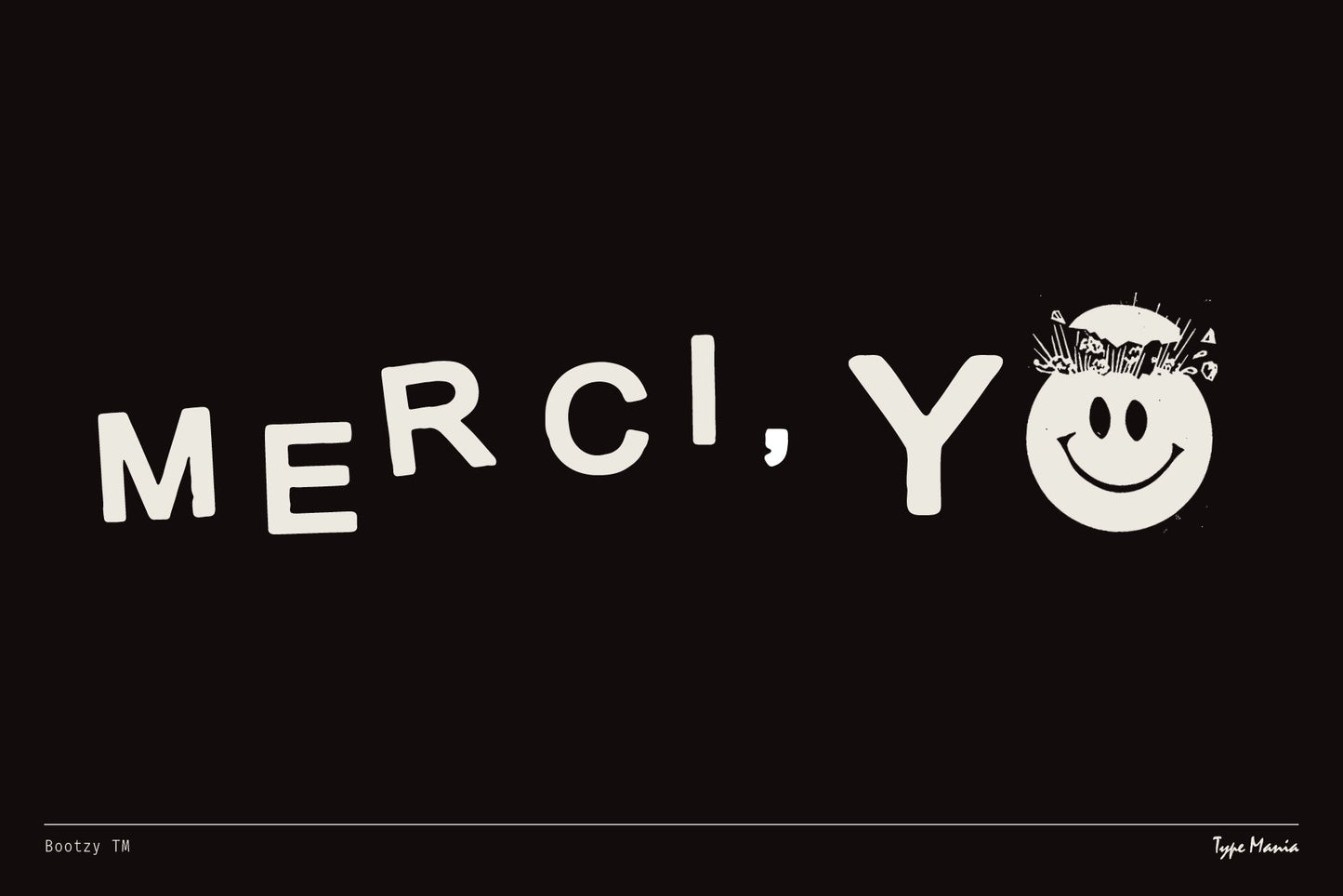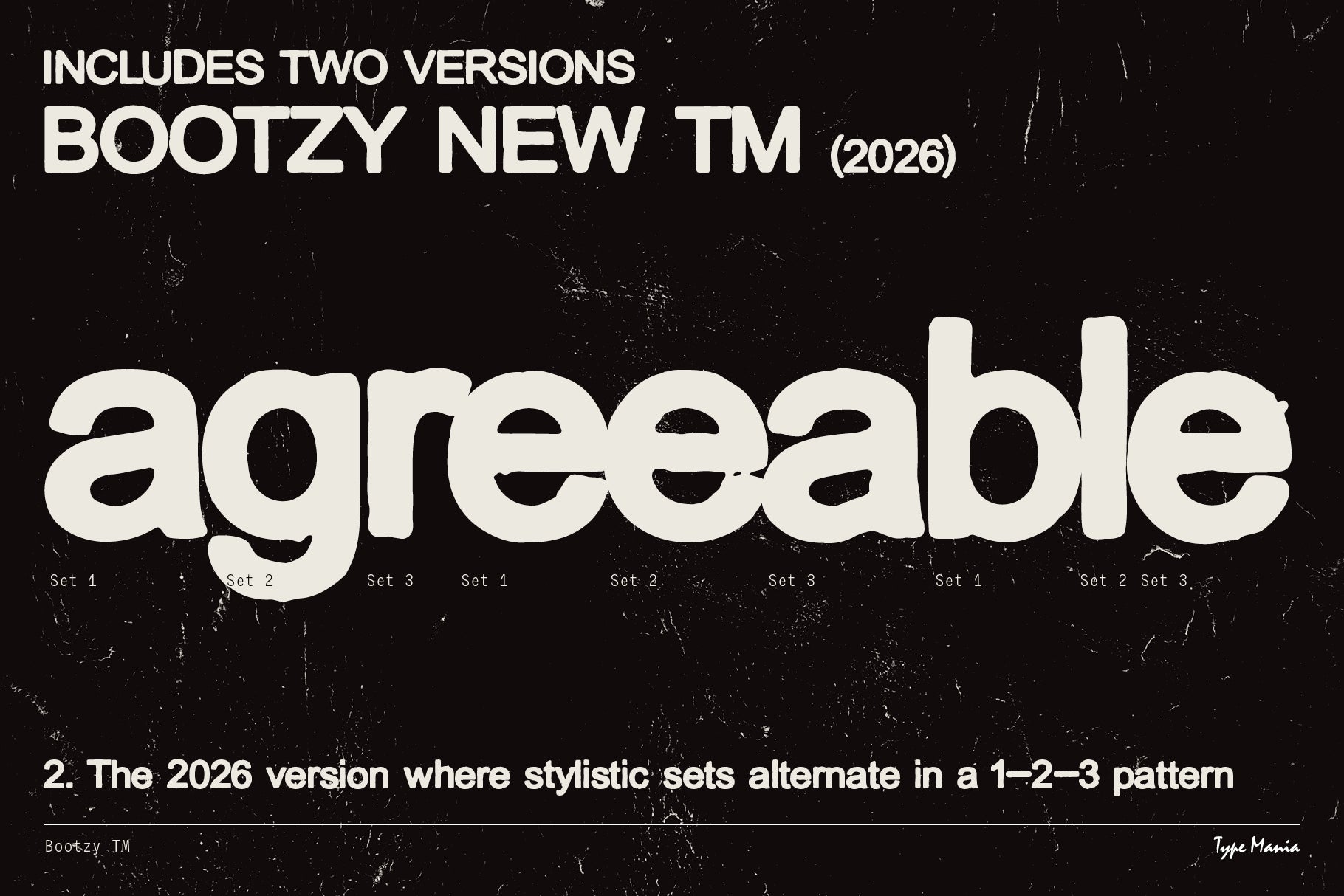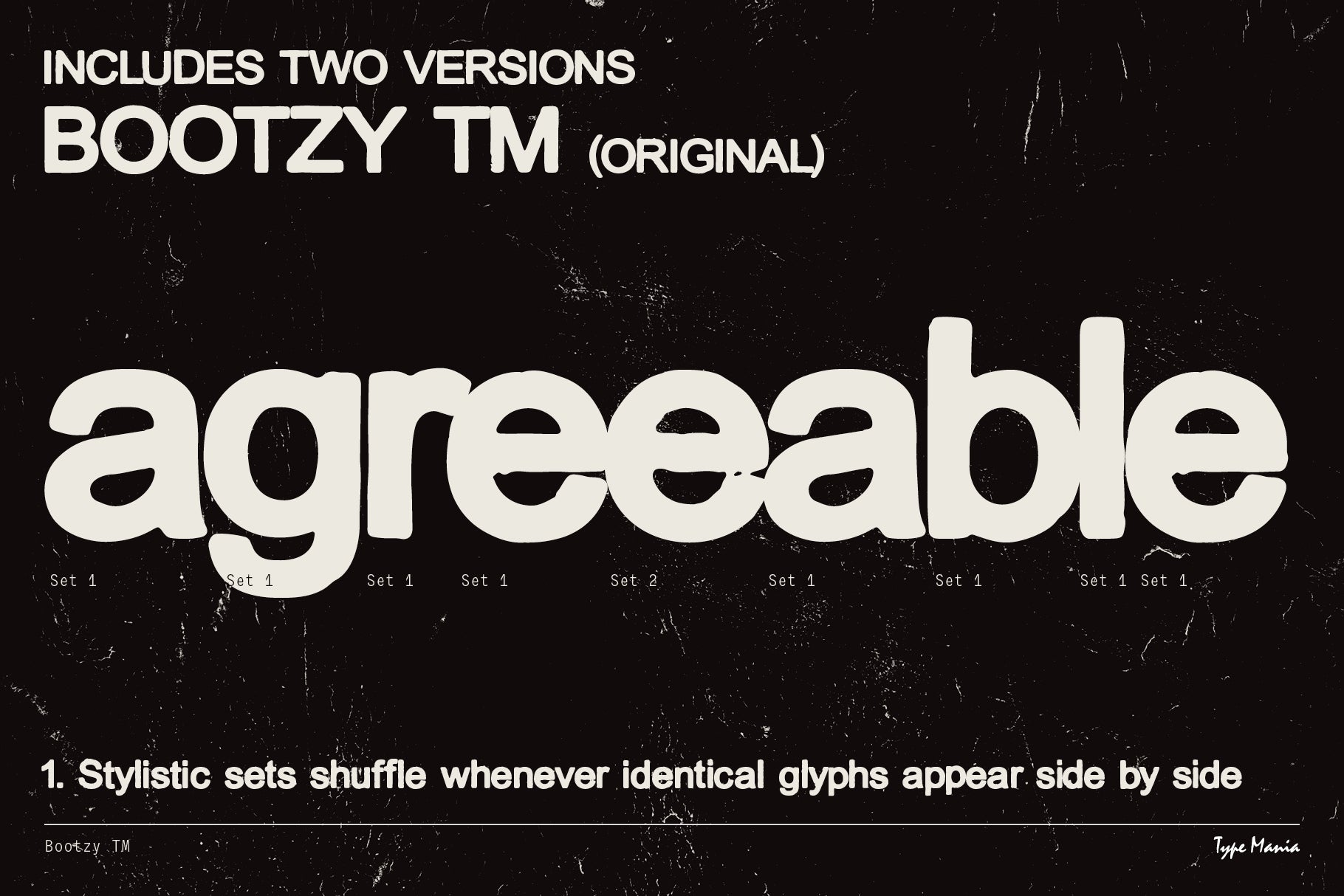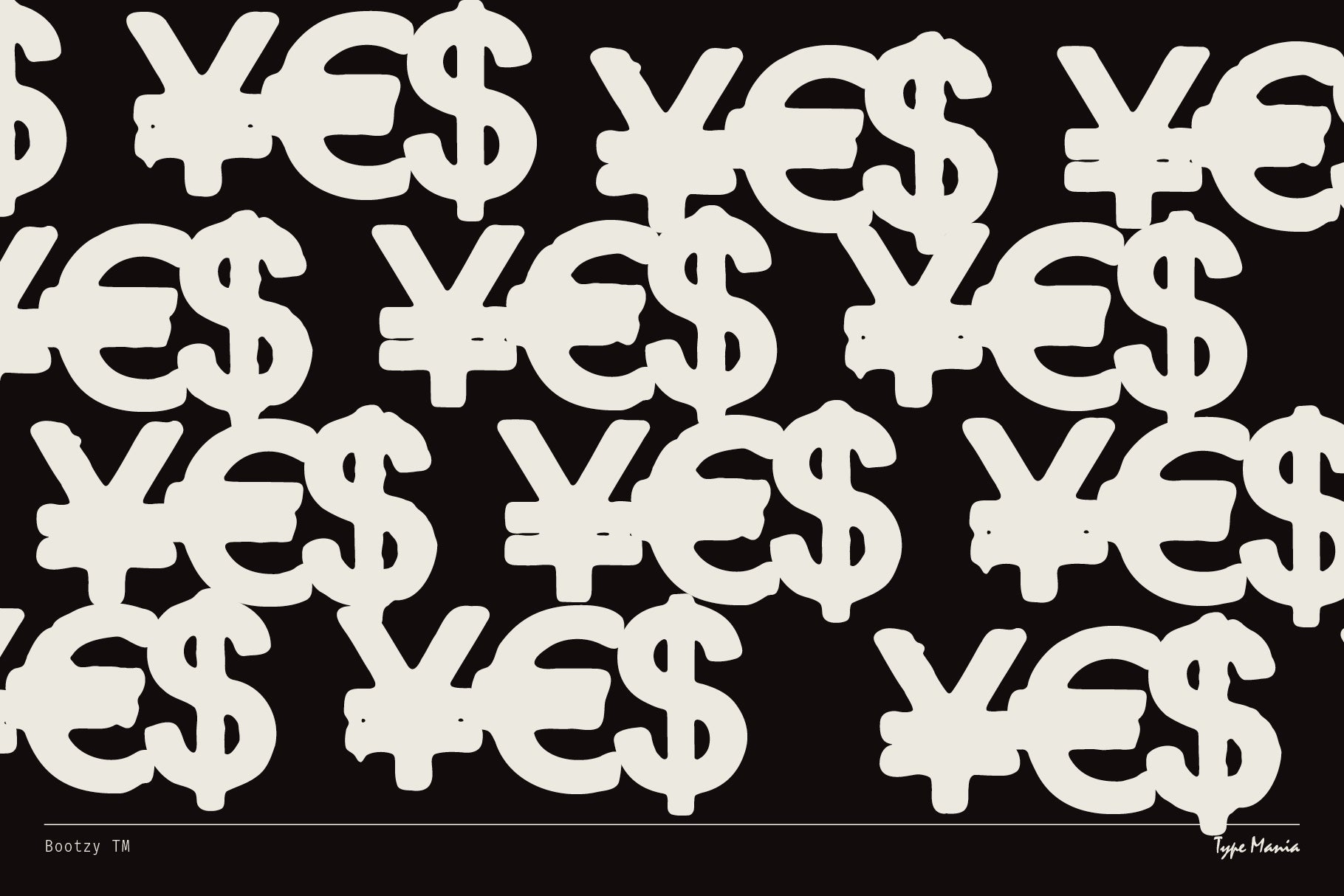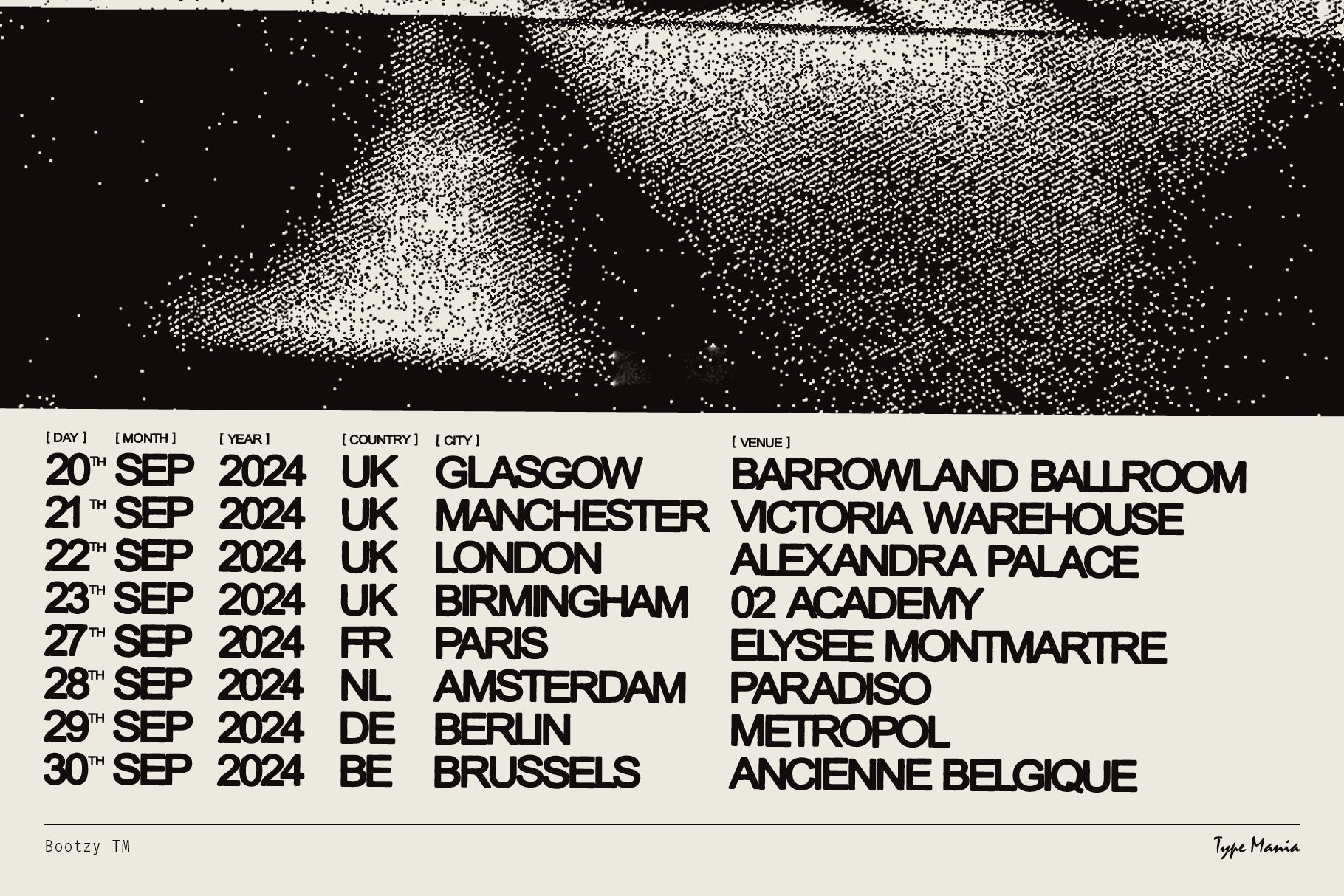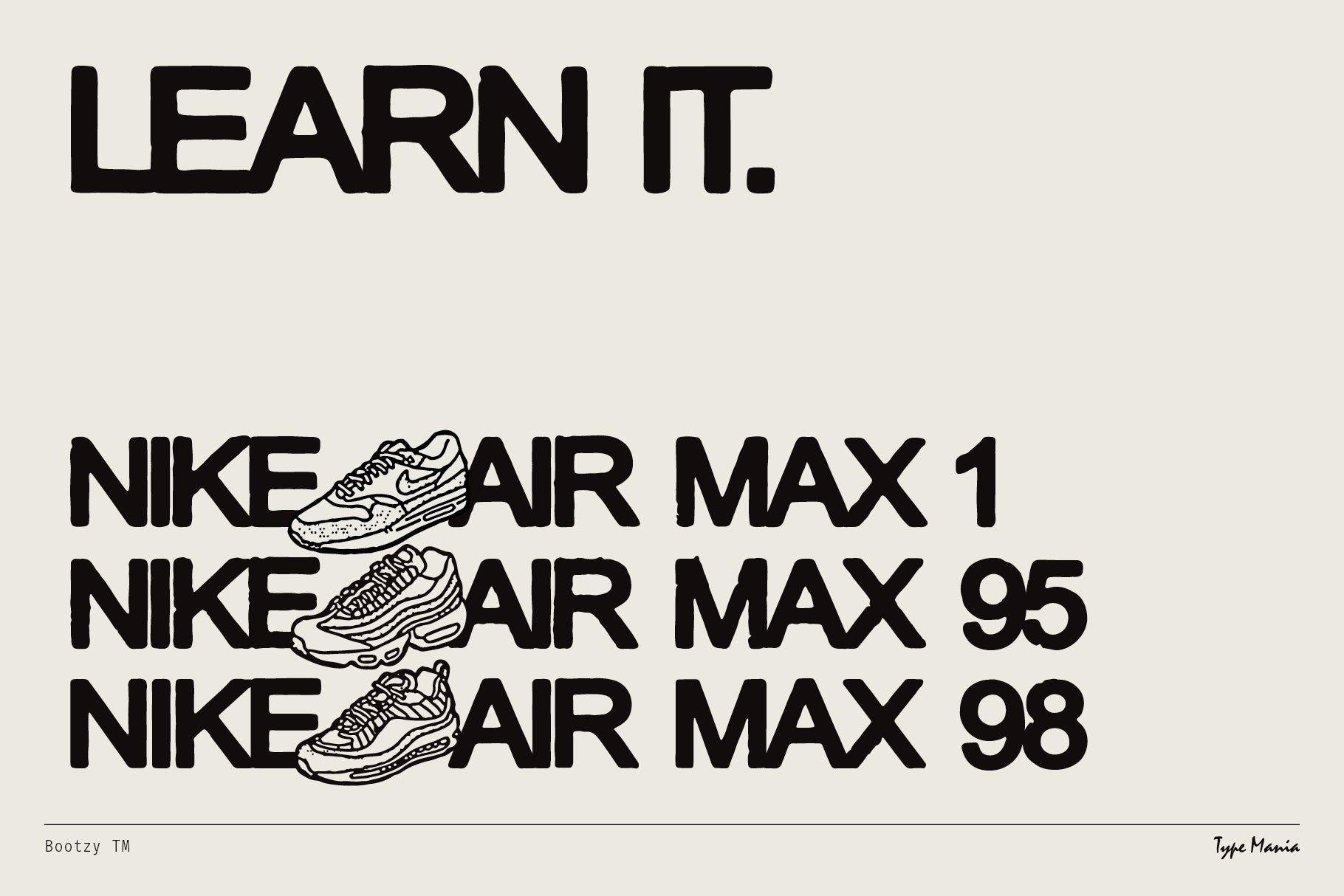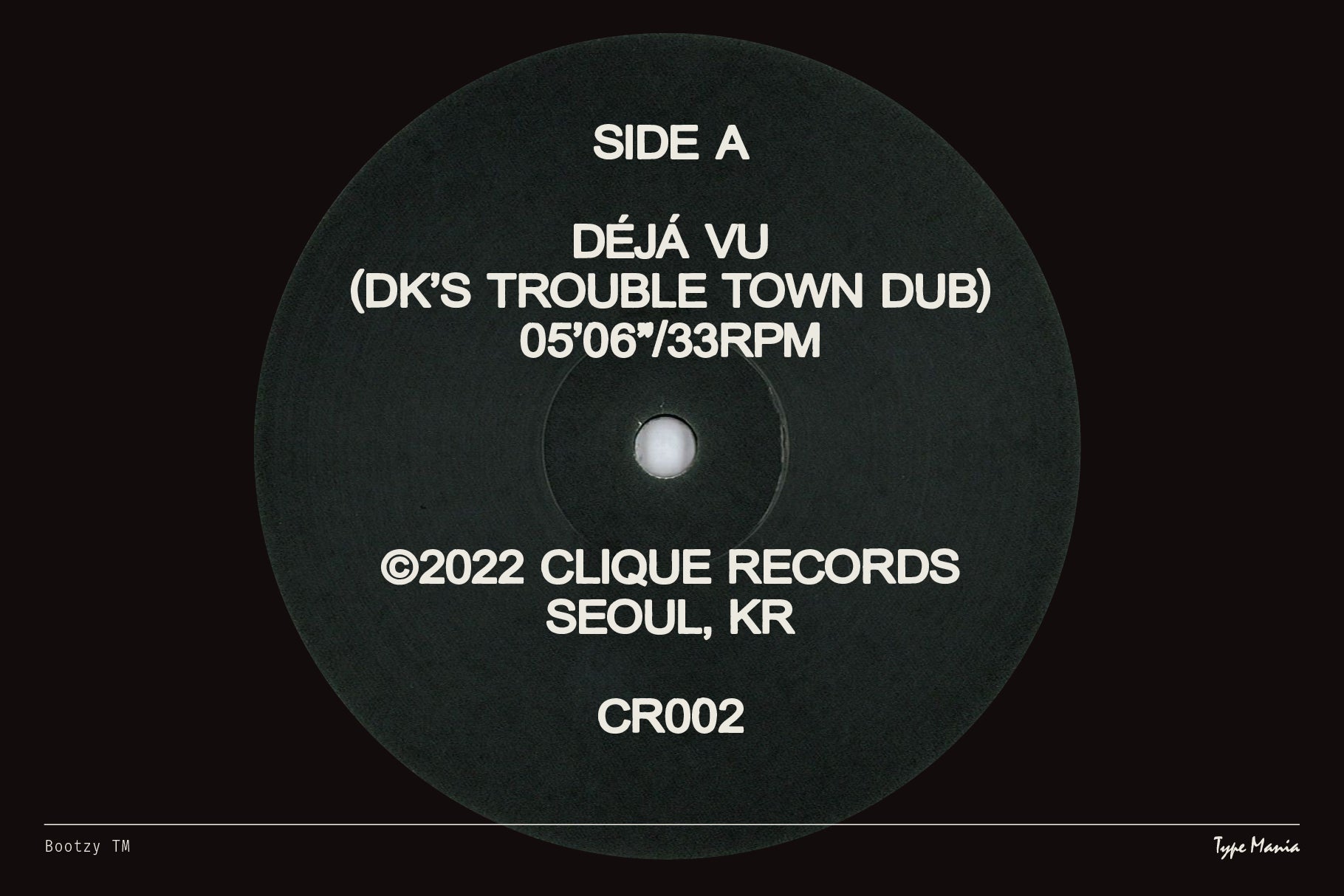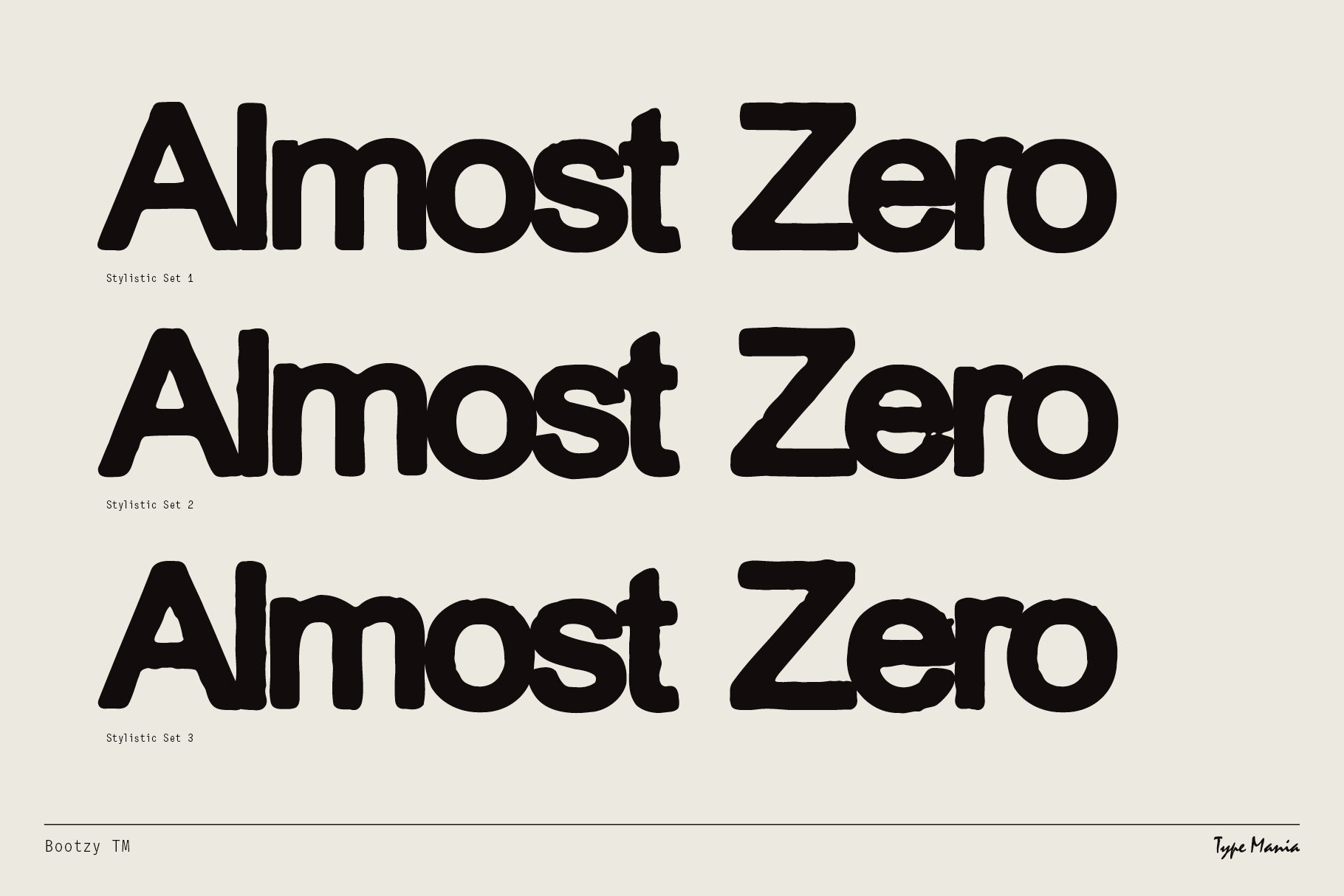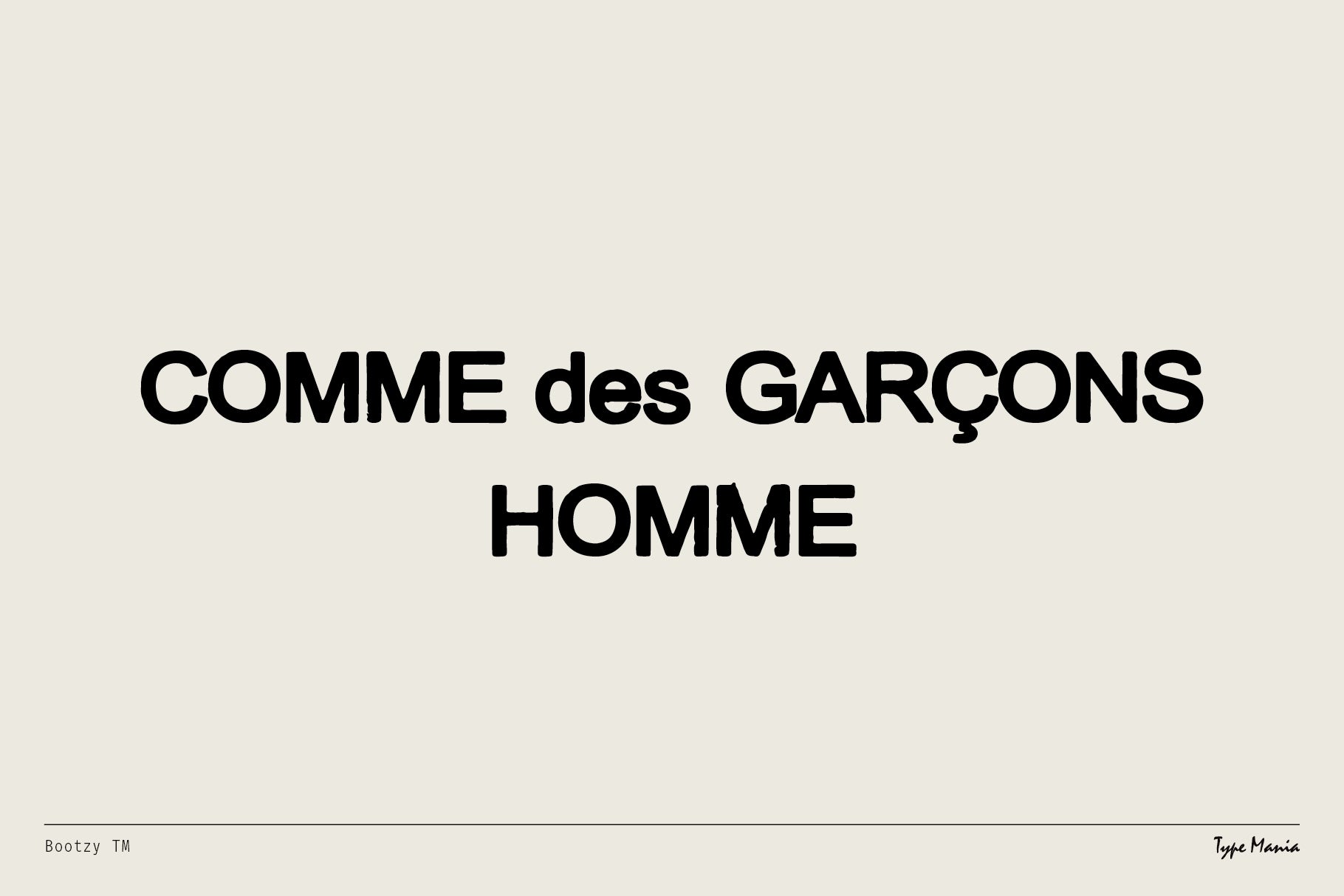
Bootzy TM
Introducing Bootzy TM. A tough sans serif designed to elevate your flyers, album covers, t-shirt designs; what have you. With three stylistic sets, the glyphs shuffle automatically, infusing your design with character and texture.
- 3 stylistic sets
- Includes two versions of the font: 1. Stylistic sets shuffle whenever identical glyphs appear side by side, 2. A new version where stylistic sets alternate in a 1–2–3 pattern, when the Contextual Alternates is turned on.